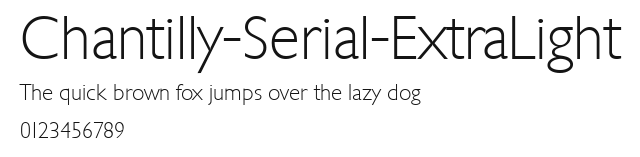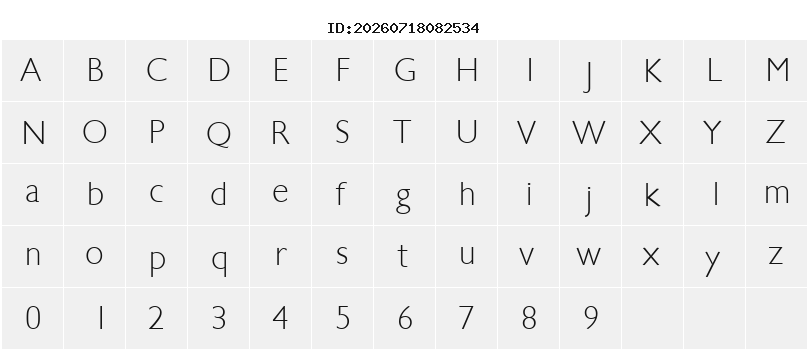
About Chantilly-Serial-ExtraLight.ttf
Chantilly-Serial-ExtraLight.ttf is a modern, elegant sans-serif font designed for ultimate readability and visual harmony. Perfect for branding, headlines, web design, and print materials.